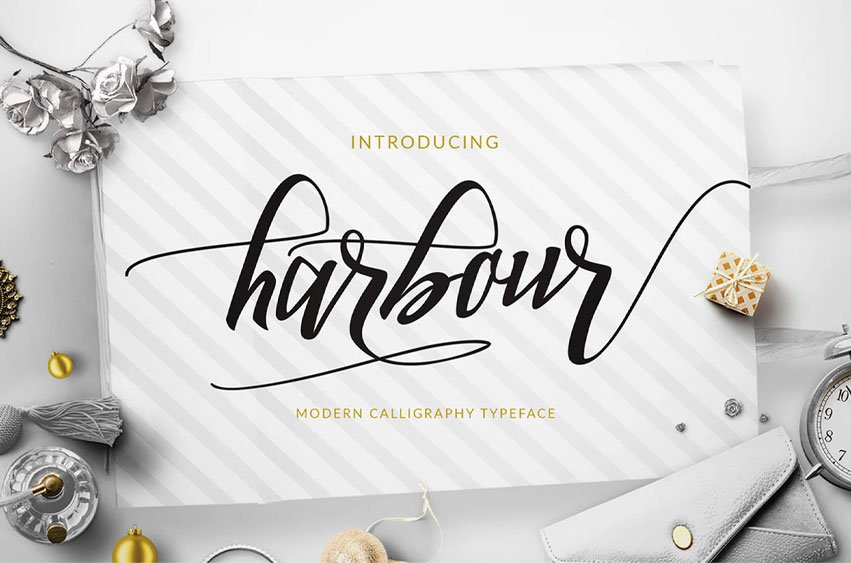
Harbour Font is a new fresh & modern script with a calligraphy style, decorative characters and a dancing baseline! So beautiful on invitation like greeting cards, branding materials, business cards, quotes, posters, and more!
Harbour come with 279 glyphs. The alternative characters were divided into several Open Type features such as Stylistic Sets, Stylistic Alternates, and Ligature. The Open Type features can be accessed by using Open Type savvy programs such as Adobe Illustrator, Adobe InDesign, Adobe Photoshop Corel Draw X version, And Microsoft Word. And this Font has given PUA unicode (specially coded fonts). so that all the alternate characters can easily be accessed in full by a craftsman or designer
• Initial Alternates
• Standard ligatures
• Unique ligatures
• Stylistic Alternates
• Stylistic sets
• Basic Latin A-Z and a-z
• Numbers
• International Symbols include